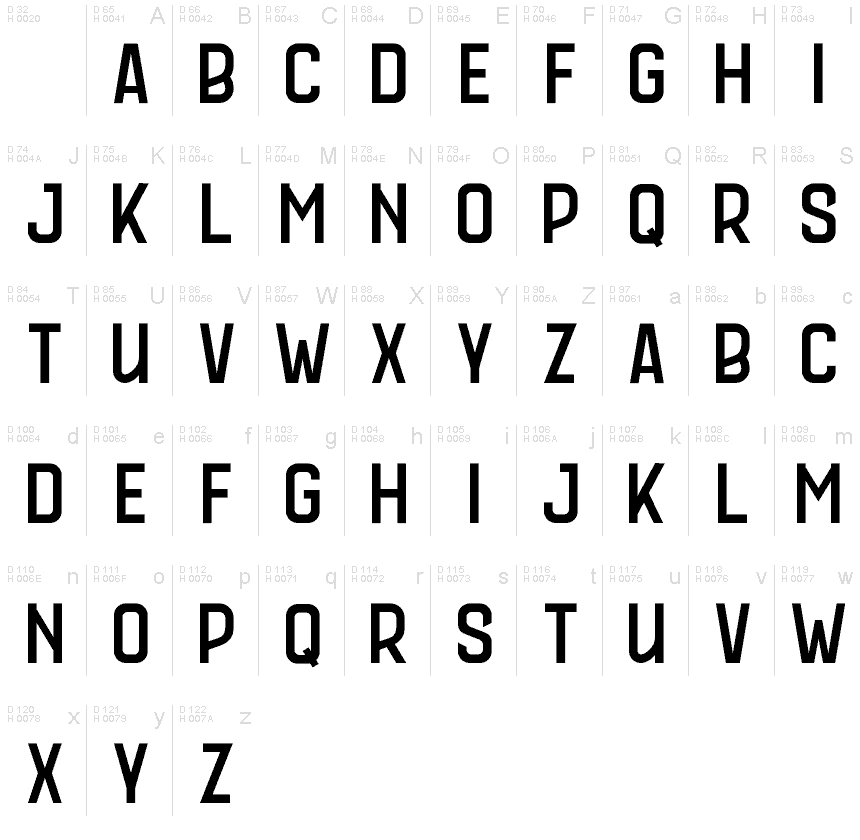
CS Rocky
CS Rocky font by Craft Supply Co. is a modern, geometric, and structured sans-serif typeface with clean lines. The whole font has a very versatile overall appearance which makes it perfect for many design projects with its characters that combine both bold and light weights.
Created as a free font, CS Rocky can be used in branding projects like logo designs, typography, business cards, posters, book covers, magazine layouts etc. Download the file to explore more potential ways this unique typeface can enhance your fresh contemporary digital artwork.